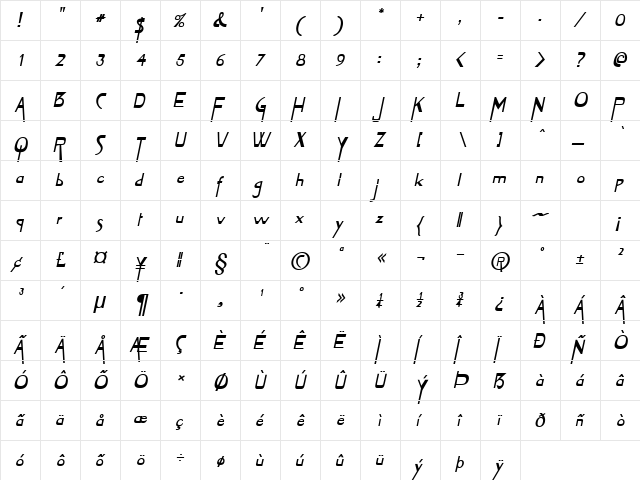
Tablet Bold Italic Font Preview
Tablet Bold Italic
Tablet Bold Italic Font Details
Design Context for Tablet Typeface
Tablet takes a measured approach to typography — its balanced proportions and neutral character make it a reliable workhorse for both digital and print work. The dynamic lean of this cut emphasises speed and emphasis in any layout. The heavy weight commands attention and anchors typographic hierarchies.